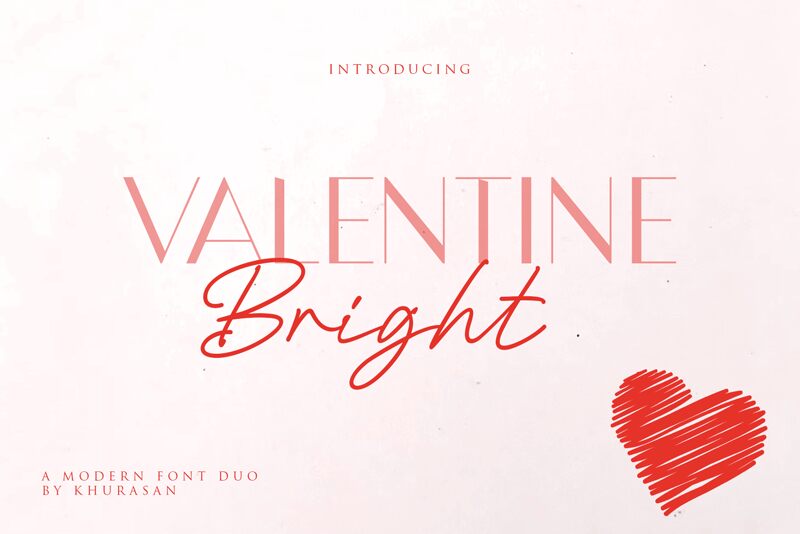
Valentine Bright Serif
Valentine Bright Serif font by Khurasan is a free romantic serif typeface that turns simple words into something soft and cinematic. Tall, graceful letters, airy spacing, and slender curves give it a “whispered on paper” feeling, like ink flowing lightly across a love note. There’s a gentle sparkle to the Valentine Bright family overall—elegant but not stiff, expressive without tipping into drama.
Using Valentine Bright Serif, this free font shines on wedding invitations, save‑the‑dates, Valentine’s promos, beauty branding, quote graphics, and delicate packaging. It reads best when given room to breathe, so let it run large for headlines and names, then pair it with a clean, neutral sans serif for body copy. The result is a polished, romantic system that feels both modern and timeless.